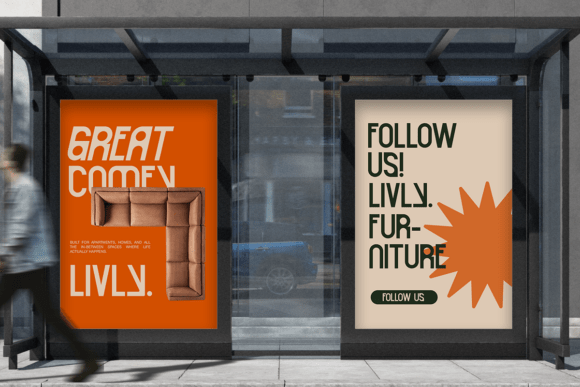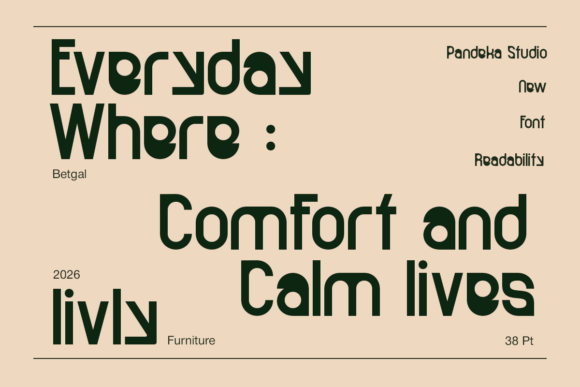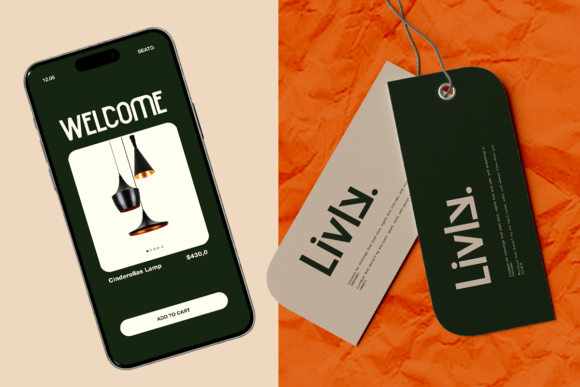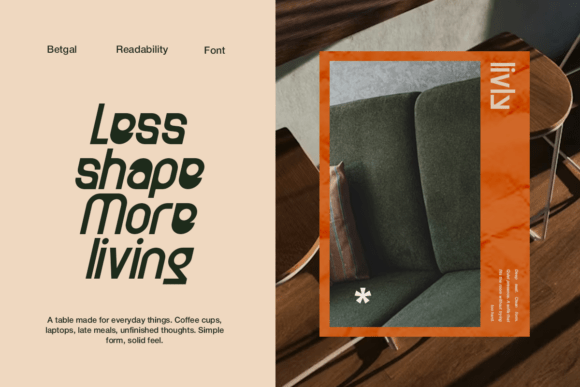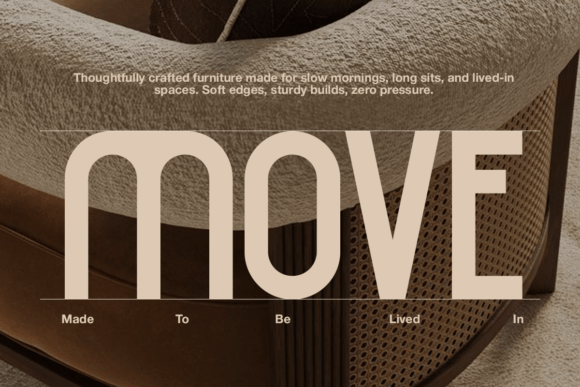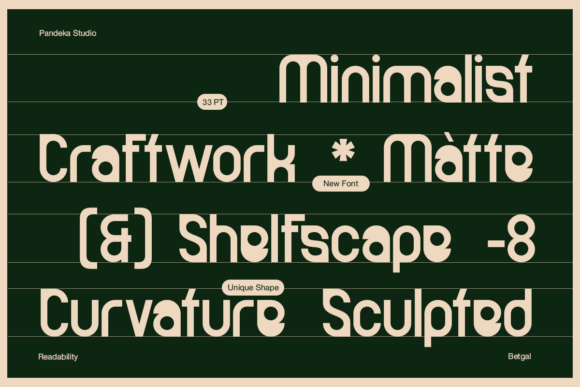
Unveiling the Perfect Typography for Modern Interiors: Betgal Font
Have you ever found yourself lost in a sea of design possibilities, trying to find the perfect font to bring your interior design project to life? You know, that moment when you scroll through your font library, and suddenly, one typeface catches your eye, and you just know it’s the one. That’s exactly what happened to us when we stumbled upon the sleek and modern Betgal Font.
Designed with a focus on contemporary furniture design, the Betgal Font is a masterclass in clean lines, smooth curves, and balanced shapes. Its versatility makes it an ideal choice for interior branding, lifestyle visuals, and modern logos. Whether you’re working on a furniture branding project or creating elegant promotional materials, the Betgal Font is sure to elevate your designs to the next level.
As designers, we’re always on the lookout for fonts that can help us convey our message in a clear and stylish way. The Betgal Font is a valuable addition to any designer’s toolkit, offering a unique blend of warmth and professionalism that’s sure to impress.
- Font Family: Betgal Font is a sans-serif font family designed for use in digital media, including websites, mobile apps, and video games.
- Character Set: Supports a wide range of languages, including Latin, Cyrillic, Greek, and many others, making it a versatile font for global applications.
- Unique Characteristics: The font’s distinctive design features a clean, modern aesthetic with a subtle rounded edge, making it suitable for use in gaming, sports, and entertainment-related projects.
Betgal Font Review
Overall, I think the Betgal Font is a solid choice for projects that need a bold, eye-catching font. ✨ It’s clear that the designers put thought into creating a unique and recognizable style that’s perfect for use in headings and titles. The font’s modern aesthetic makes it a great fit for modern branding and digital designs.
- What works well:
- Unique and recognizable style
- Perfect for headings and titles
- Modern aesthetic
- Works well for digital designs and modern branding
- Limitations:
- May not be suitable for body text due to its bold nature
- Lack of ligatures and contextual alternates
- May not be as readable in small font sizes
My overall impression is that the Betgal Font is a great choice for designers who want to make a statement with their typography. While it may not be perfect for every project, its unique style and modern aesthetic make it a solid addition to any designer’s toolkit.
The Betgal Font is ideal for use in:
Sports and gaming branding
Event promotion materials
Digital signage
Marketing and advertising materials